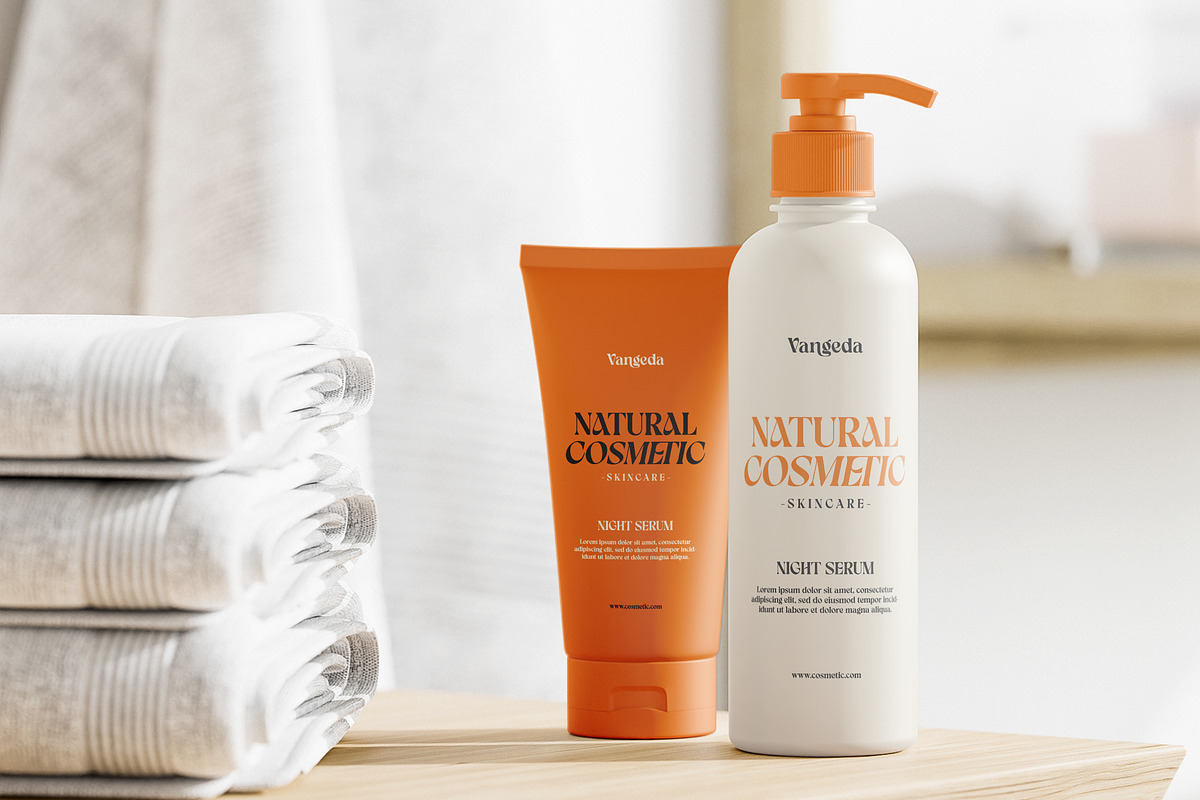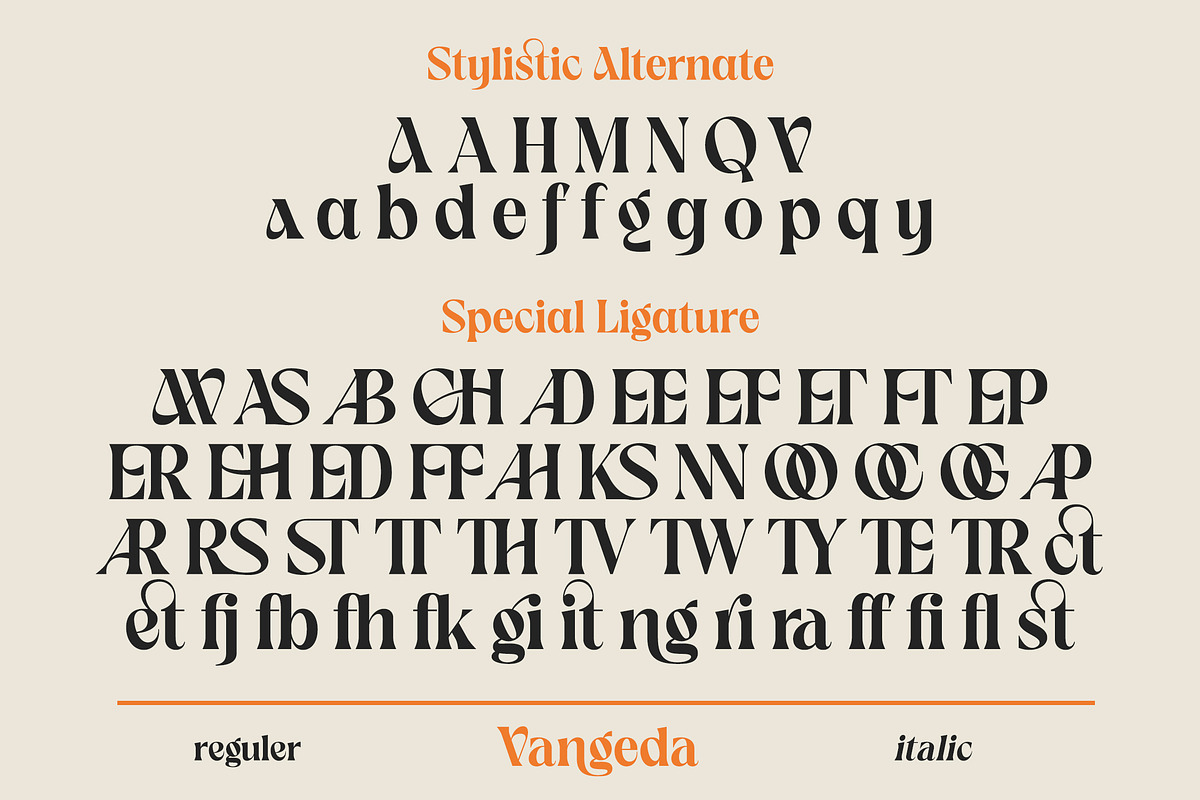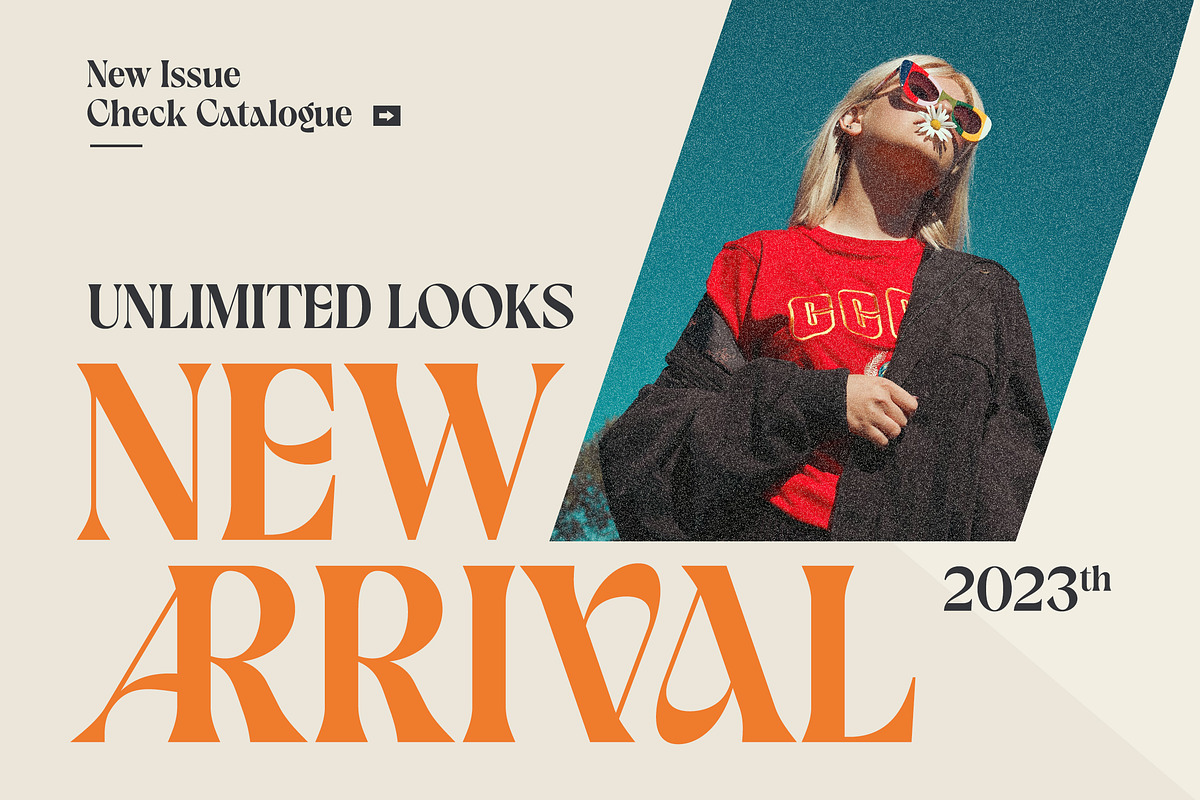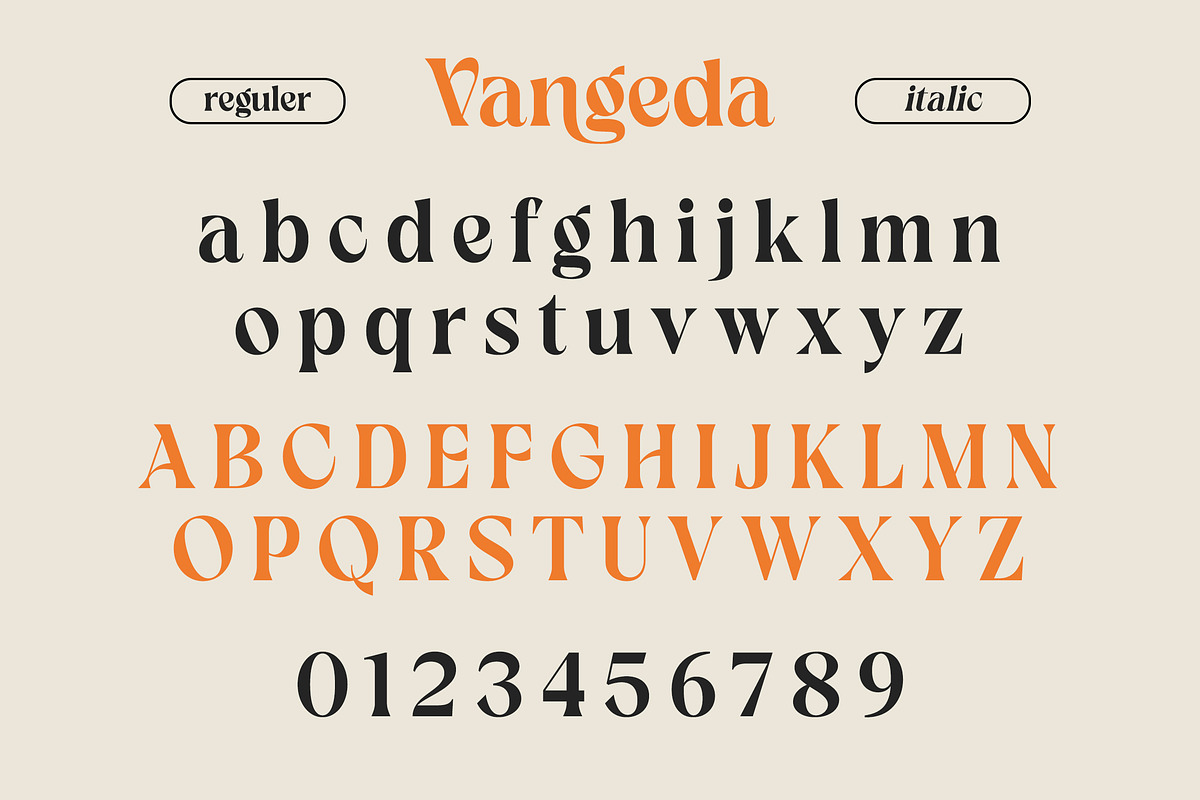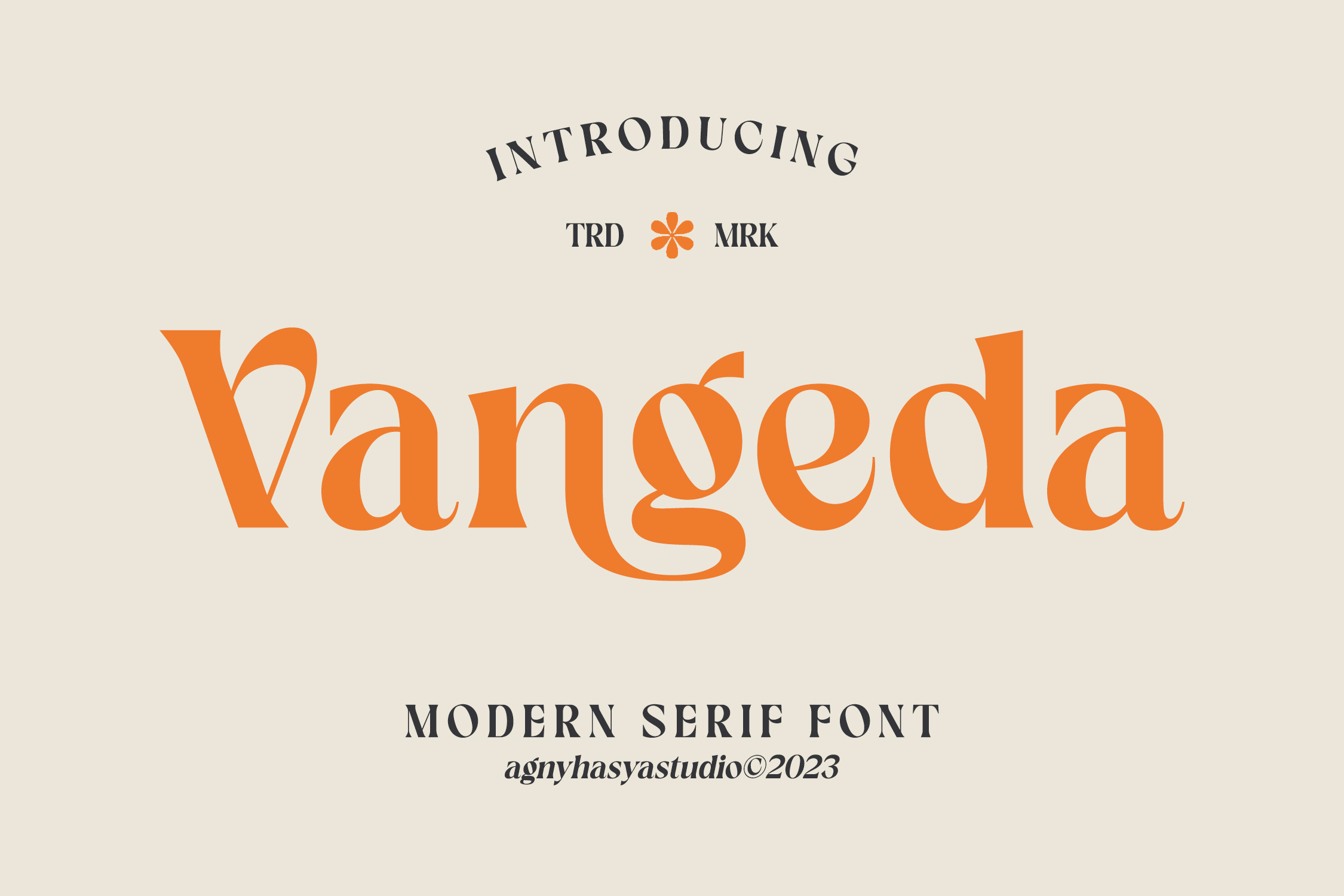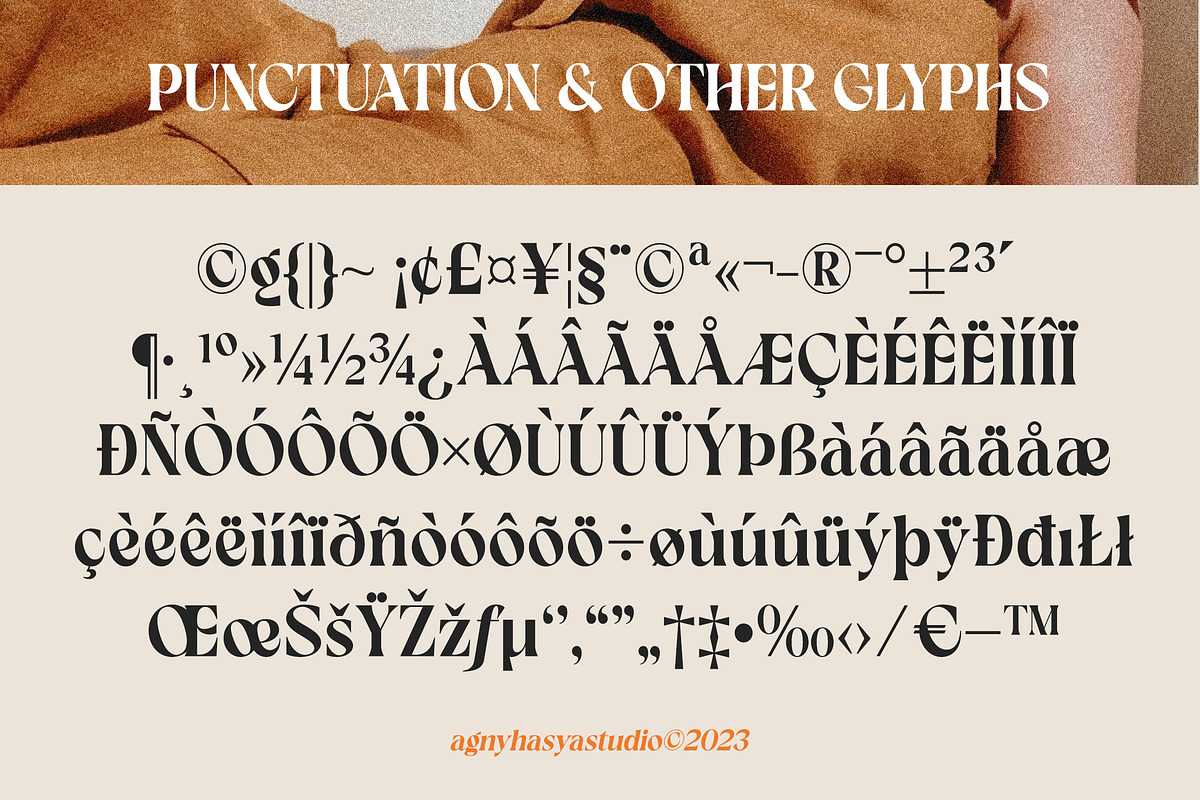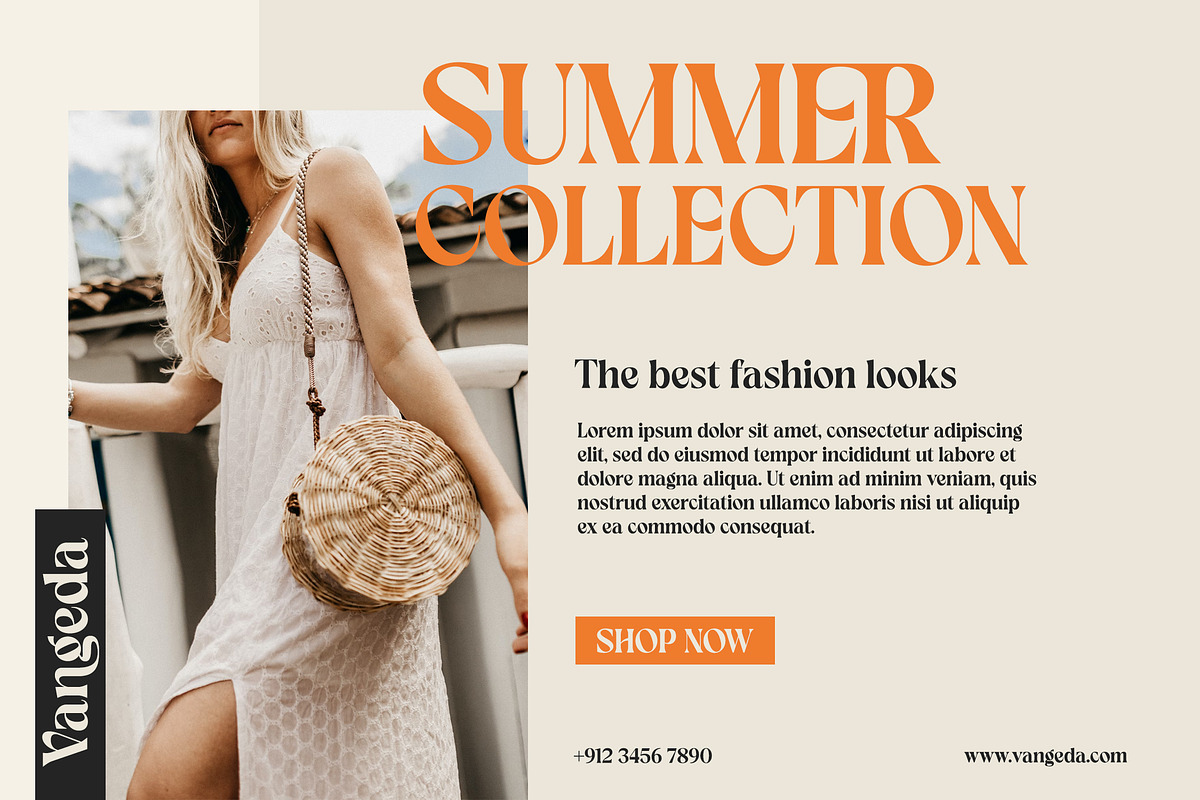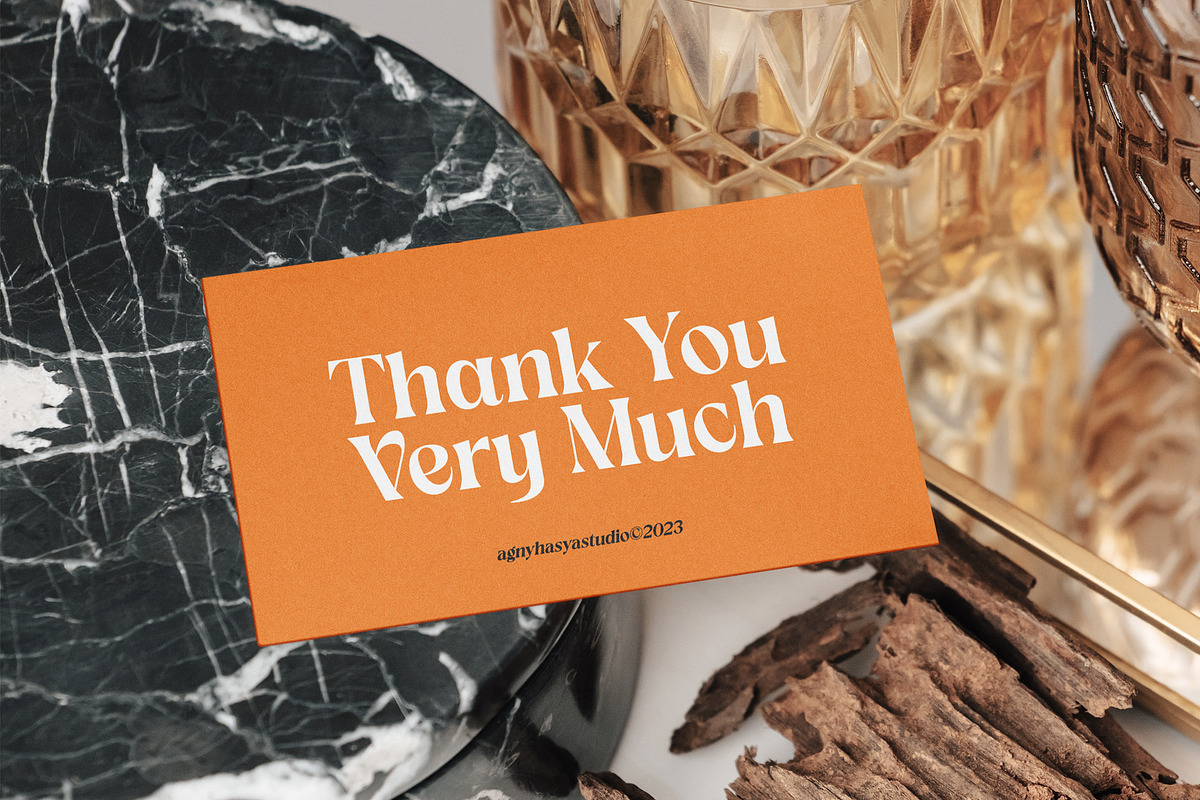
Vangeda - Modern Serif Font
Introducing Vangeda - Modern Serif Font
Vangeda is a Modern & Elegant Serif Typeface Font created with 2 (two) styles (regular & italic), and glyph variations like alternates and ligatures. Combine it and make your perfect typography design!
Perfect for your design projects like logos, branding, advertising, product designs, stationery, magazine designs, book/cover title designs, photography, art quotes, wedding designs, fashion designs, special events, labels, product packaging, and more.